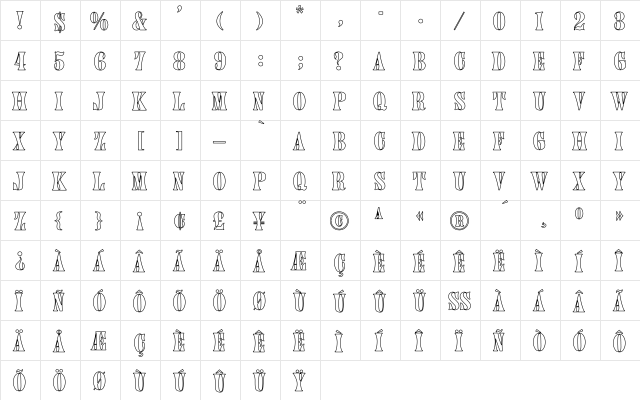
Juniper-Normal Hollow Regular
Design Context for Juniper-Normal Hollow Typeface
Juniper-Normal Hollow is a composed and adaptable typeface that performs quietly and consistently across a wide range of design contexts.